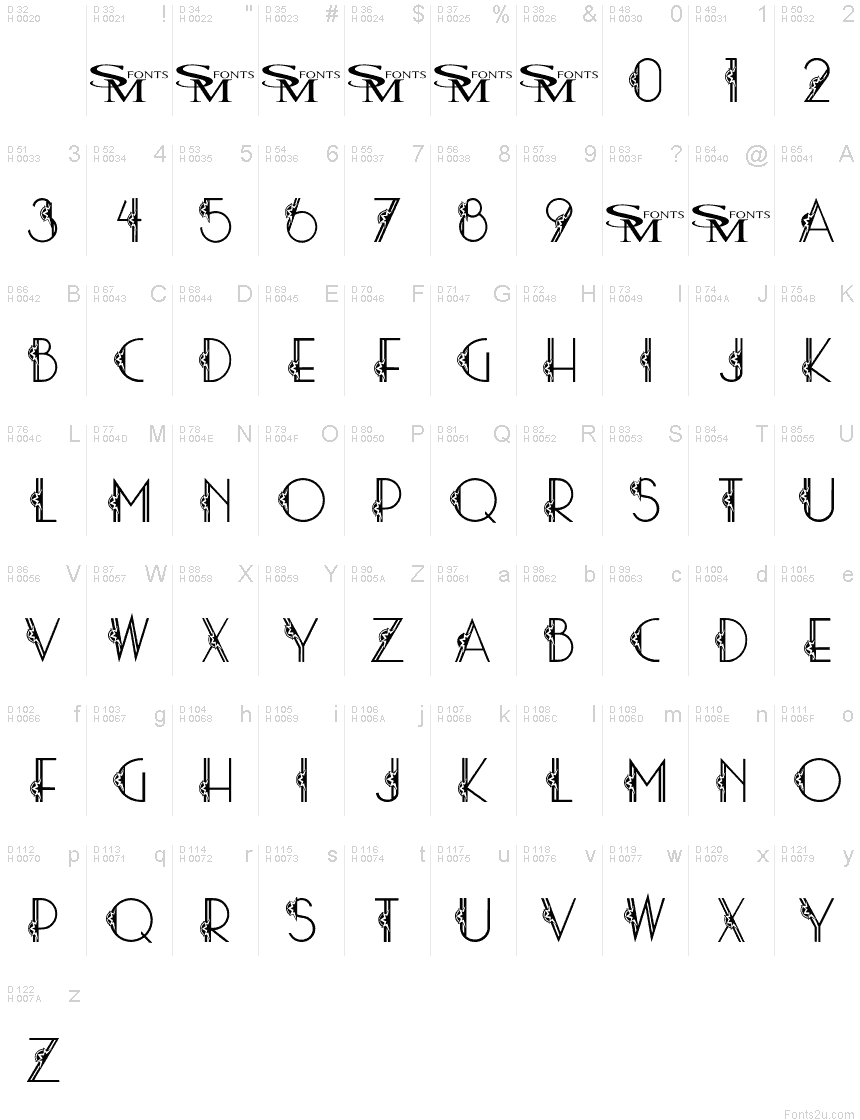
stardust06
Stardust 06 is a free Art Deco star-cut caps display font with a theatrical, night-sky mood. The letters lean on tall geometric silhouettes and fine inline striping, while repeated starbursts bite into the strokes to give the whole font a bright, poster-era sparkle.
It fits best where the lettering can act like ornament - on event posters, retro packaging, cocktail menus, title cards, magazine cover lines, and monograms that need a little celestial drama. As a free font, it makes most sense in short display settings, because the star notches and Deco rhythm give even a few letters the feel of a finished emblem.